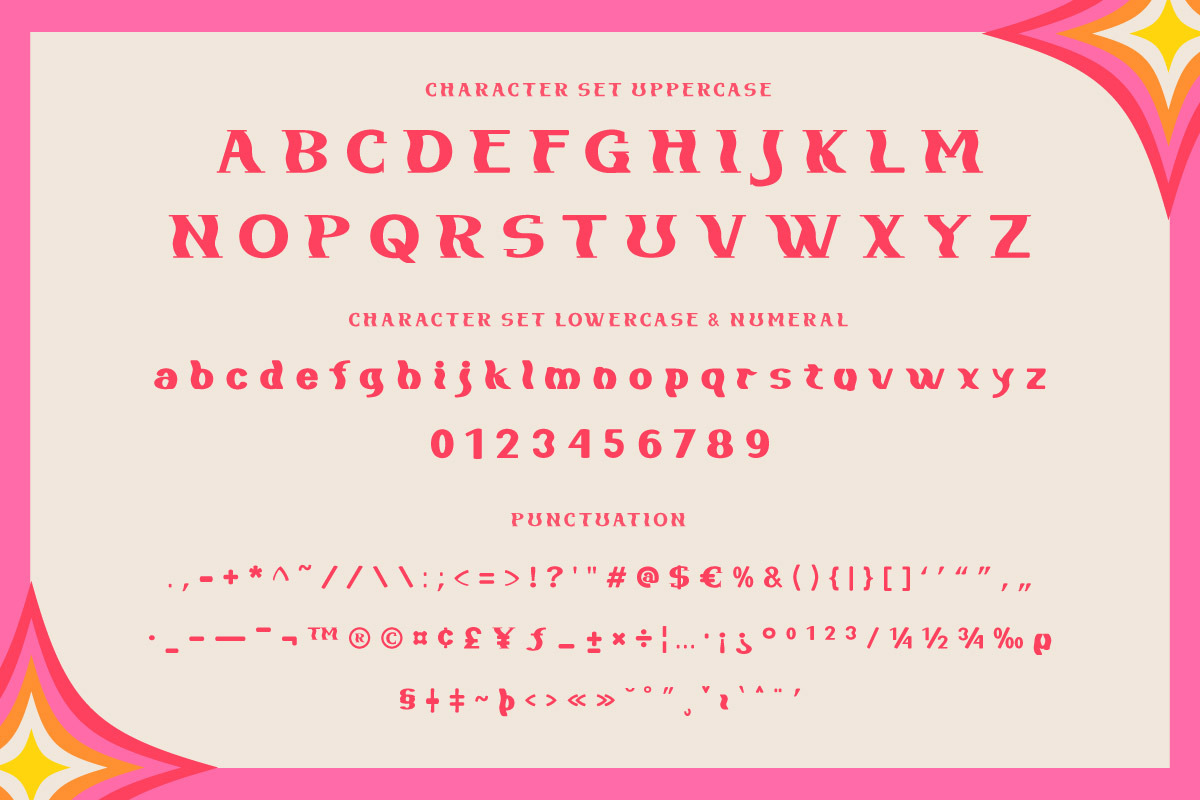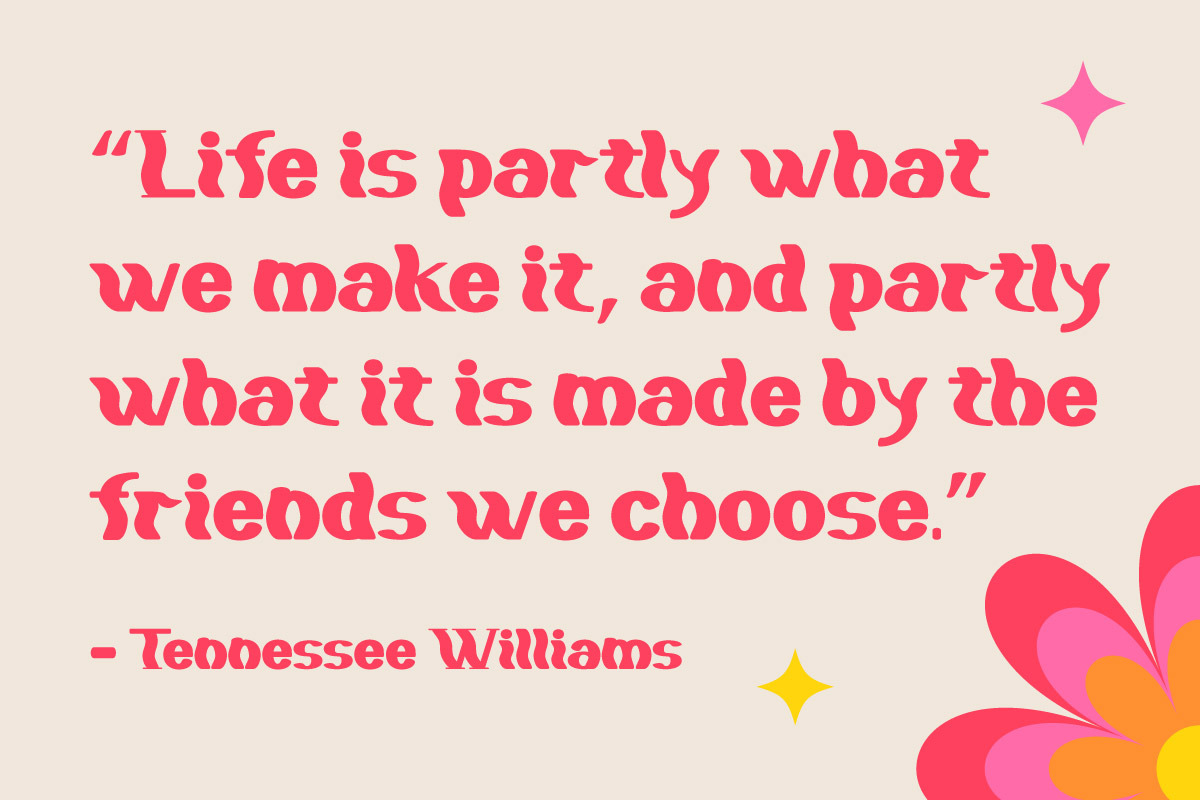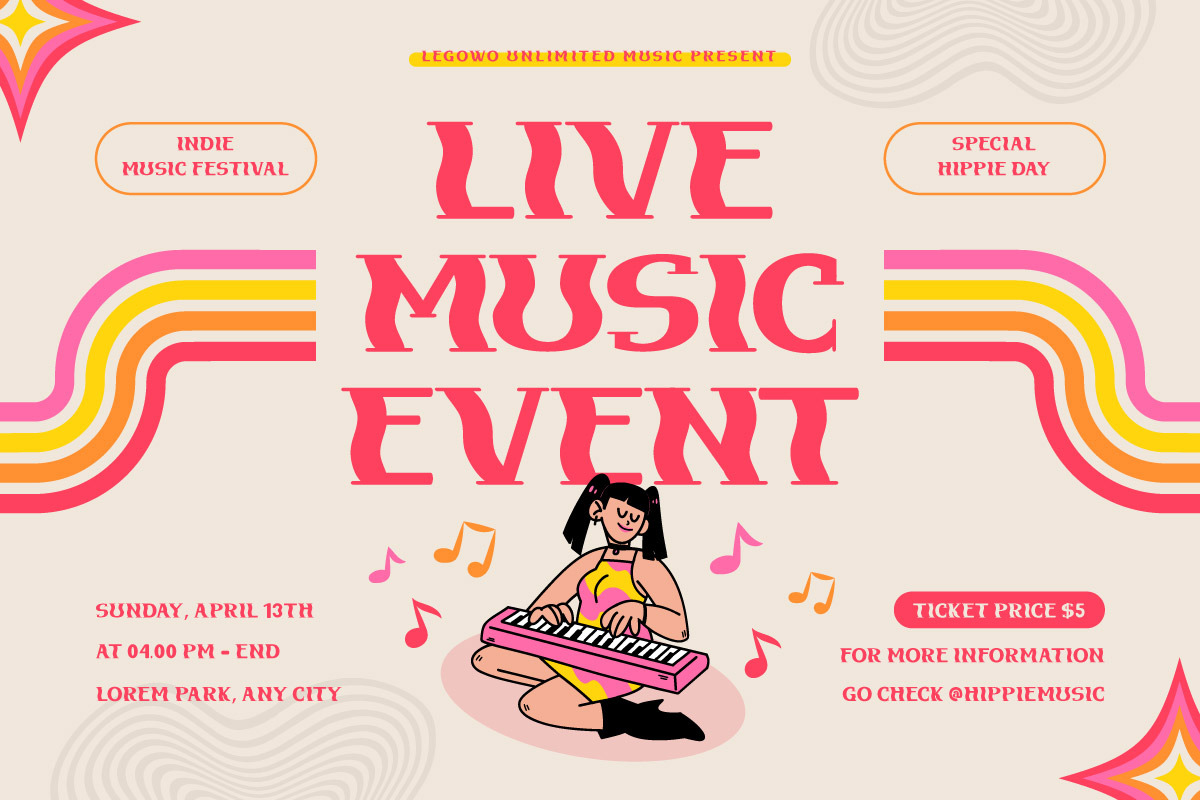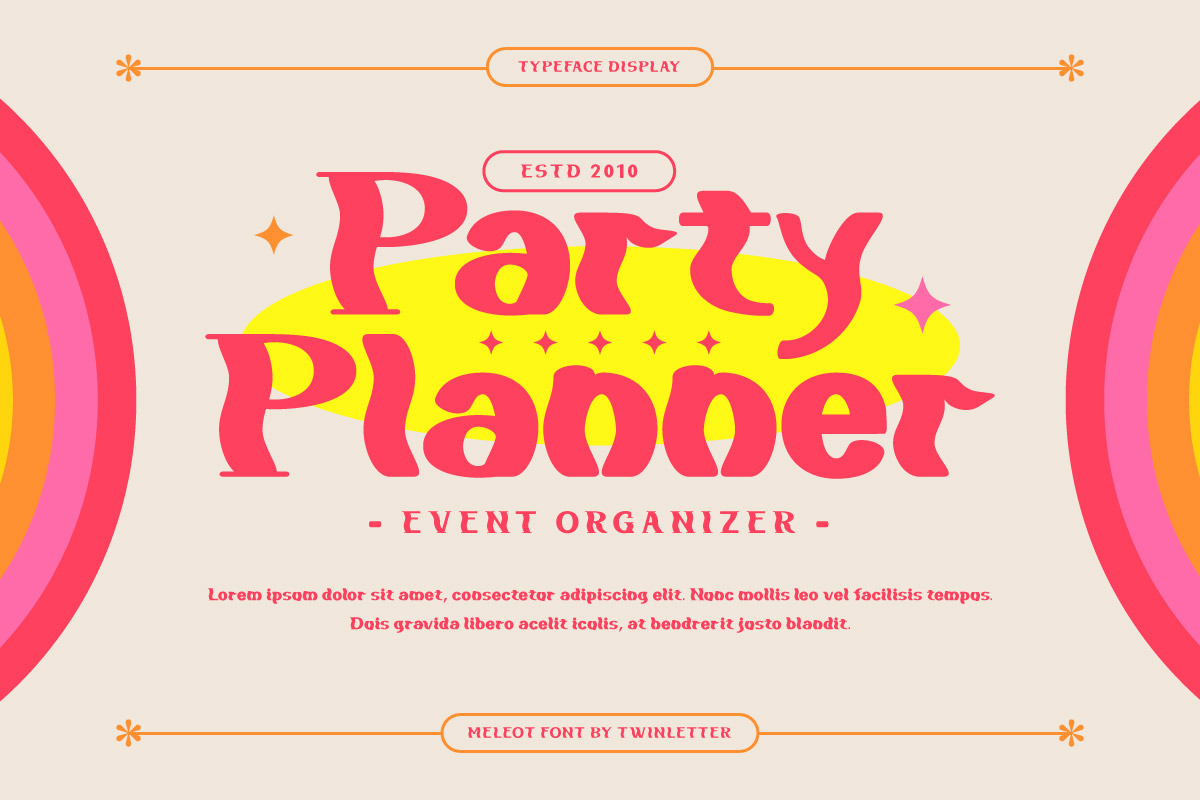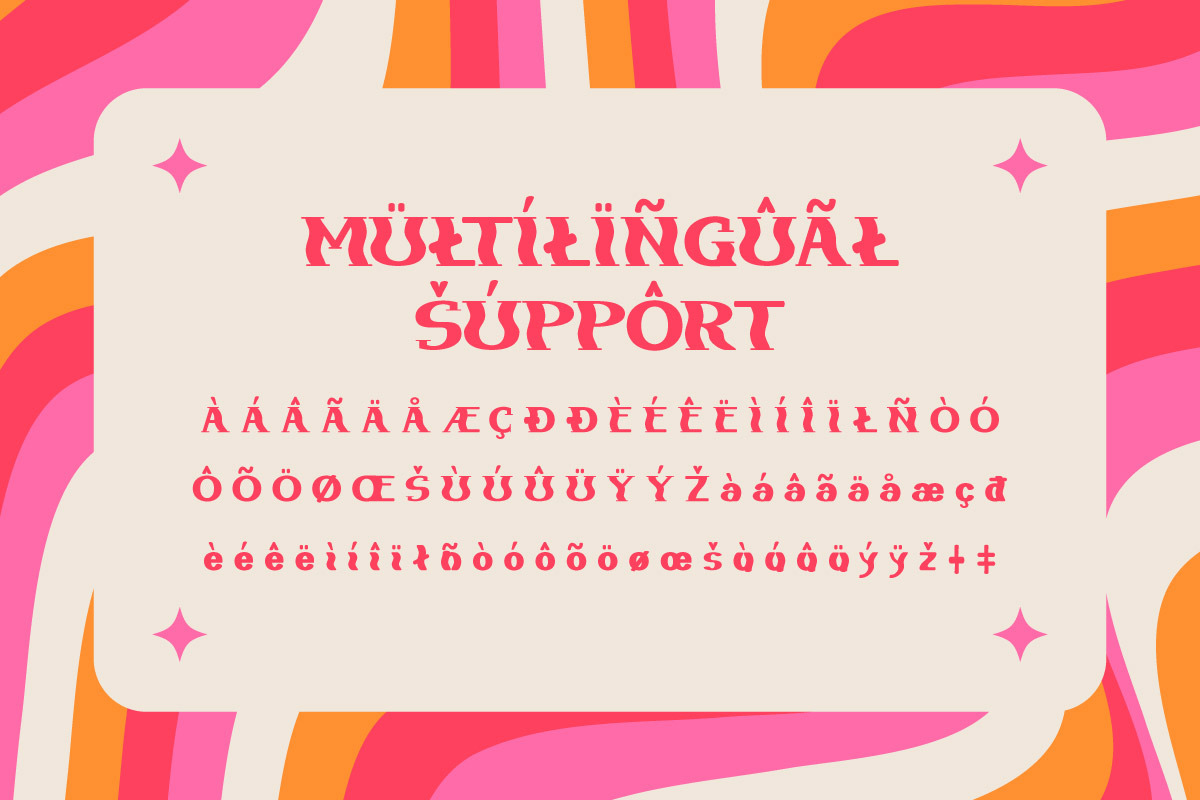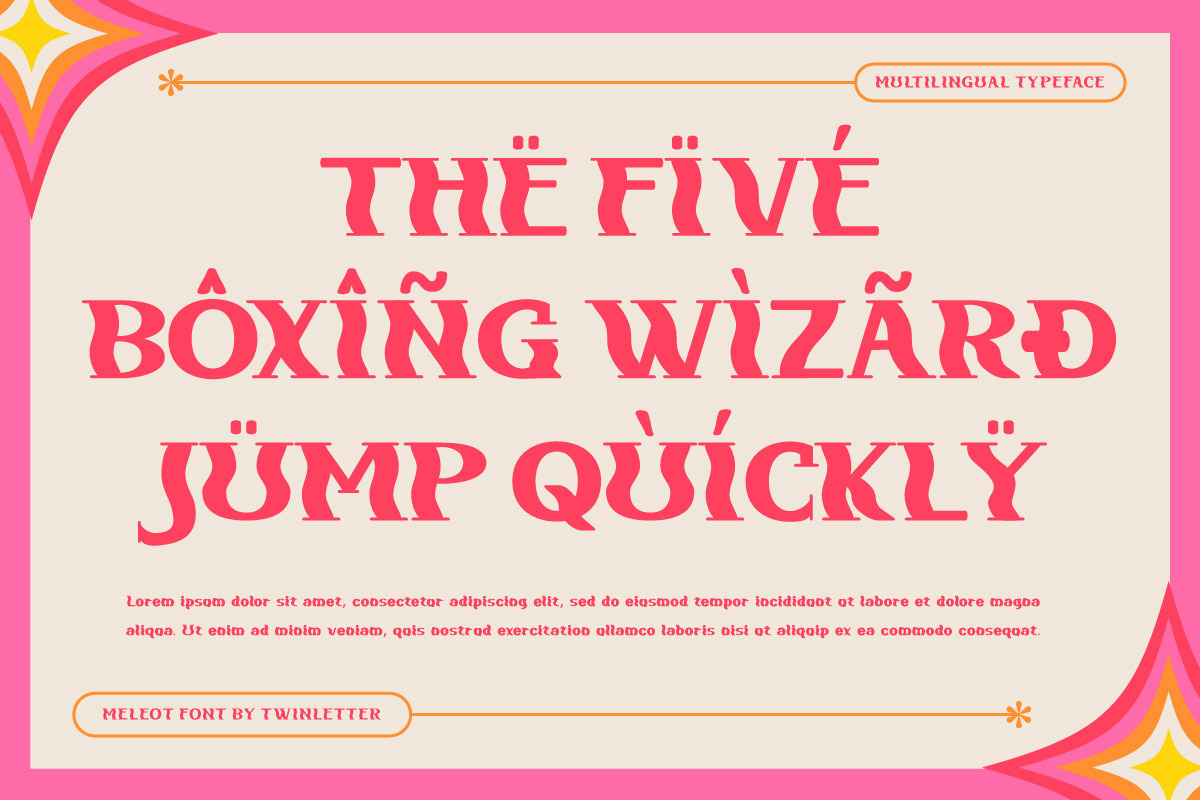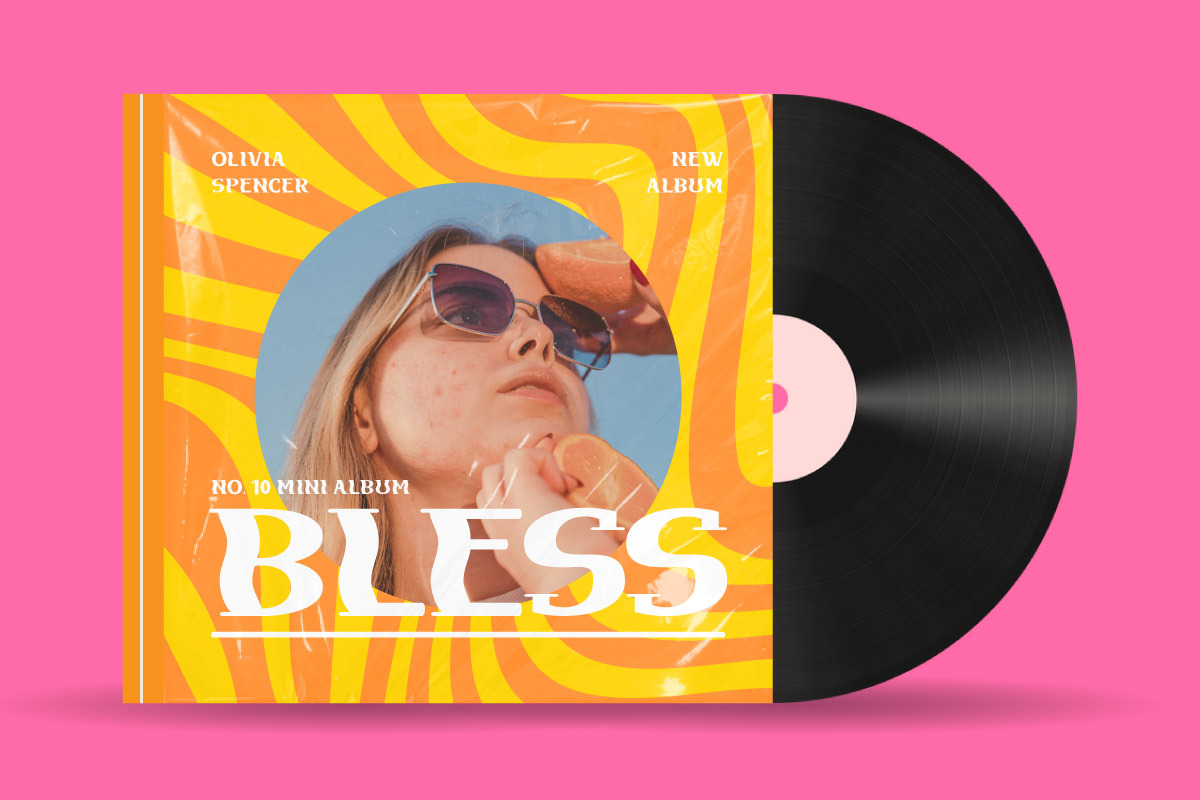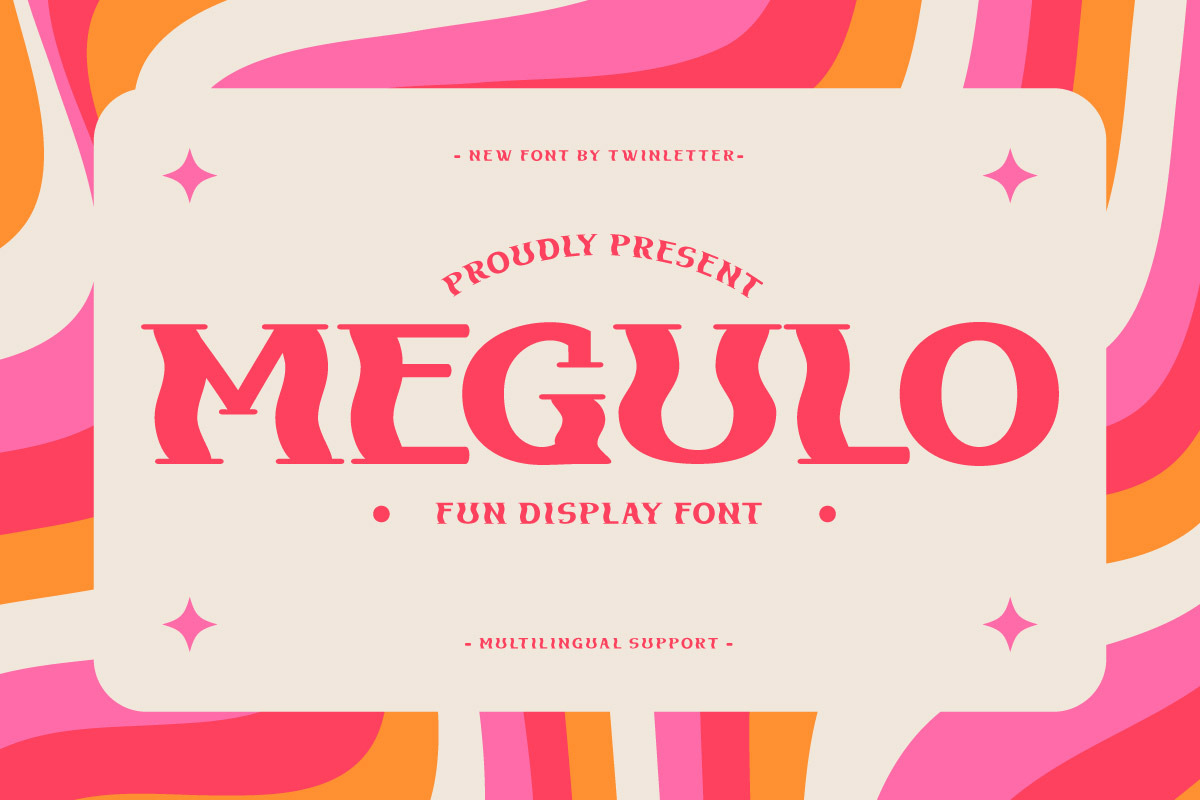
Megulo - Playful Display Font
Megulo is a playful display font that’s full of fun. Its quirky, whimsical characters make it perfect for children’s books, party invitations, and any design where you want to add a touch of fun. With Megulo, your designs will always bring a smile to people’s faces.
- Fonts include Multilingual: Support for 85 languages. Afrikaans, Albanian, Asu, Basque, Bemba, Bena, Breton, Catalan, Chiga, Cornish, Croatian, Czech, Danish, Dutch, Embu, English, Esperanto, Estonian, Filipino, Finnish, French, Friulian, Galician, Gusii, Hungarian, Indonesian, Irish, Italian, Kabuverdianu, Kalenjin, Kamba, Kikuyu, Kinyarwanda, Latvian, Lithuanian, Lower, Sorbian, Luo, Luxembourgish, Luyia, Machame, Makhuwa-Meetto, Makonde, Malagasy, Maltese, Manx, Meru, Morisyen, North, Ndebele, Norwegian Bokmål, Norwegian Nynorsk, Nyankole, Oromo, Polish, Portuguese, Quechua, Romanian, Romansh, Rombo, Rundi, Rwa, Samburu, Sango, Sangu, Scottish, Gaelic, Sena, Serbian, Shambala, Shona, Slovak, Slovenian, Soga, Somali, Spanish, Swahili, Swedish, Swiss German, Taita, Teso, Turkish, Upper Sorbian, Uzbek (Latin), Volapük, Vunjo, Walser, Zulu.